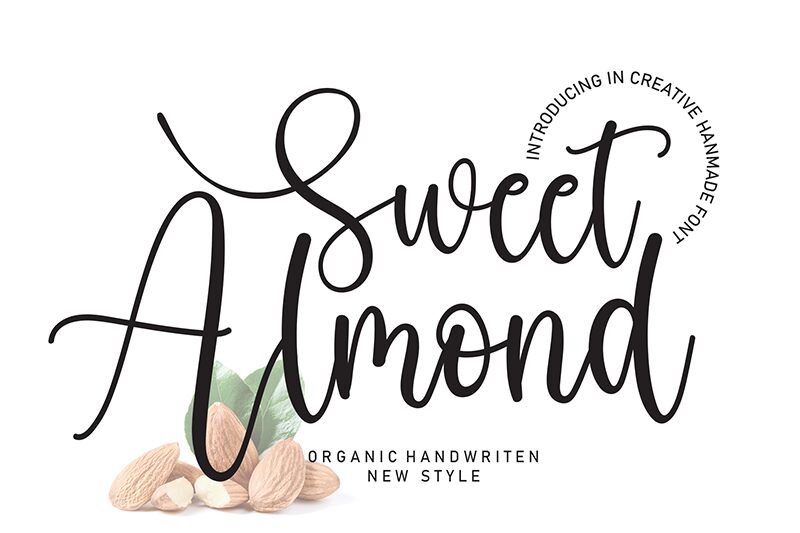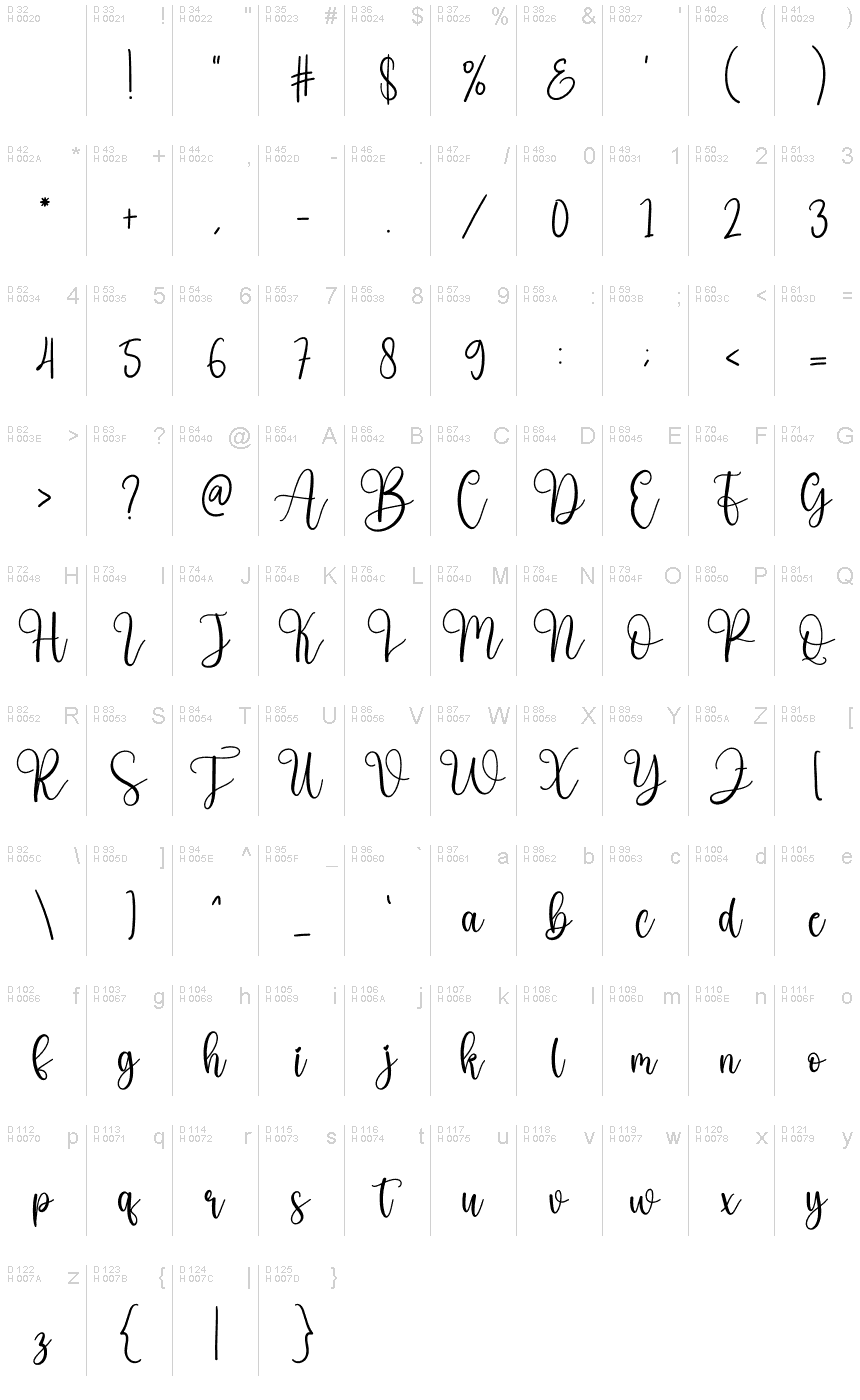
Sweet Almond
Sweet Almond is a stunning calligraphy font designed by scratchones. Its semi-light weight creates an elegant and graceful look, making it perfect for wedding invitations, greeting cards, and other formal projects. The flowing strokes of Sweet Almond add a touch of sophistication to any design. This font is also suitable for branding and logo projects that require a luxurious feel. Whether you're designing a product label or a social media post, Sweet Almond's delicate curves and loops will elevate your work to the next level. Try it out for yourself and see how this semi-light calligraphy font can transform your designs.
the latest style letters are perfect for wall displays, wedding invitations, social media post logos, advertisements, product packaging, product designs, labels, photography, watermarks, invitations, stationery, and any project that requires taste handwriting.